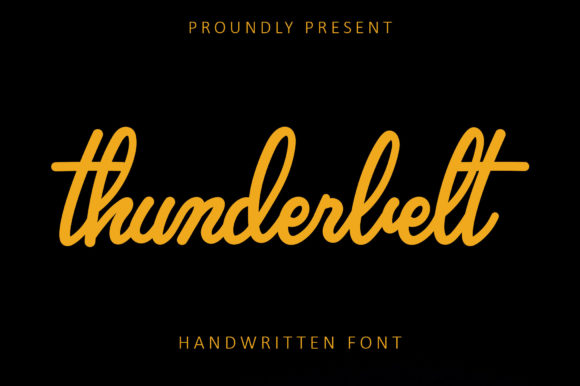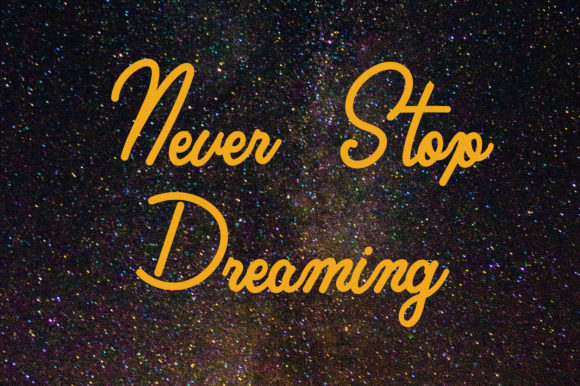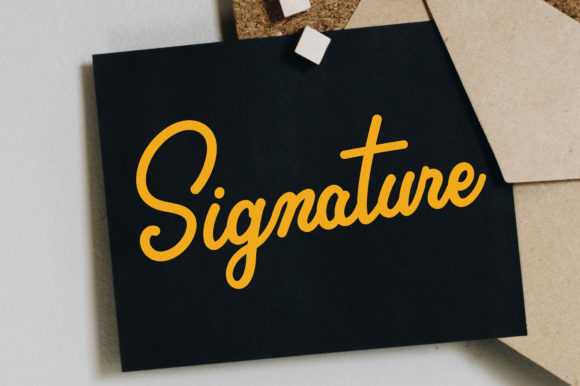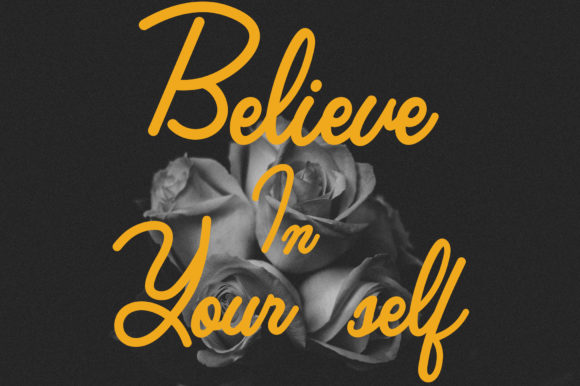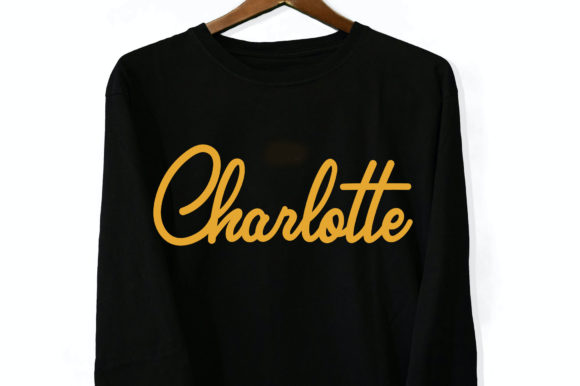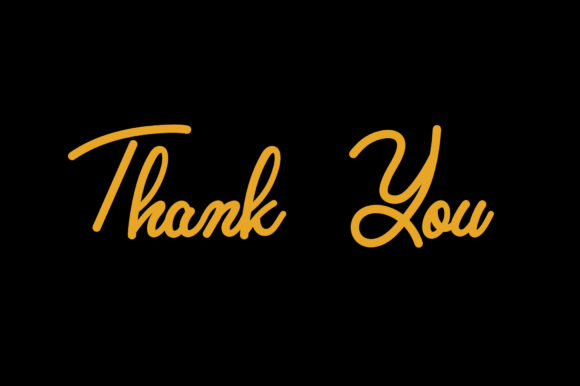
Thunderbelt Font
About Thunderbelt Font
Thunderbelt is a sweet and cursive handwritten font. This gentle font will look gorgeous on a variety of design ideas. It will add a joyful and romantic touch to each of your projects!